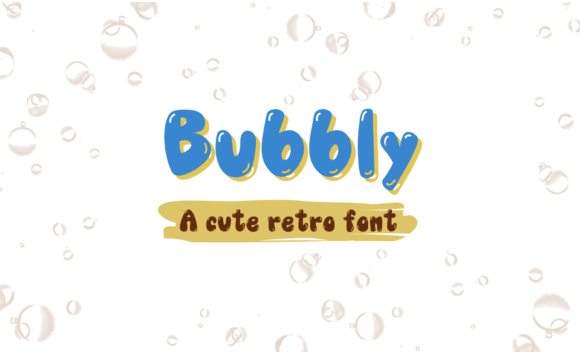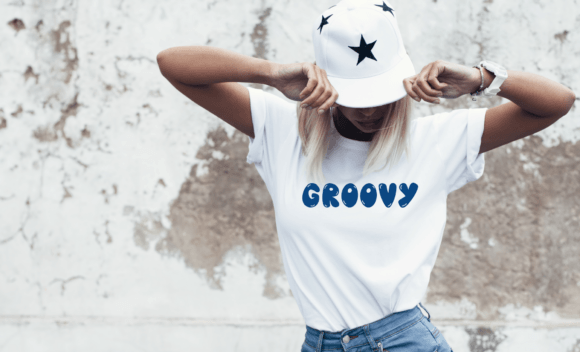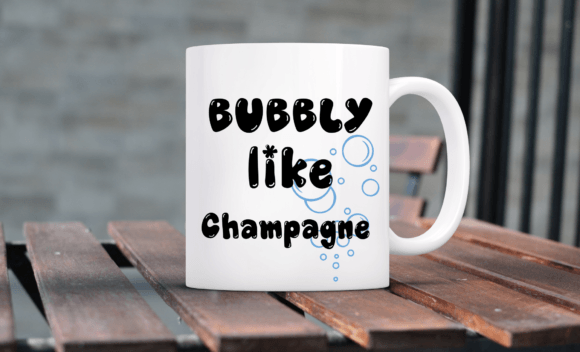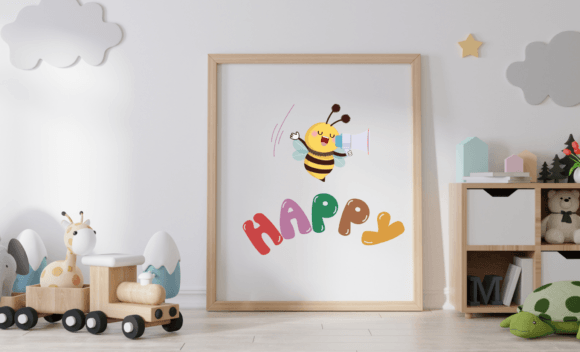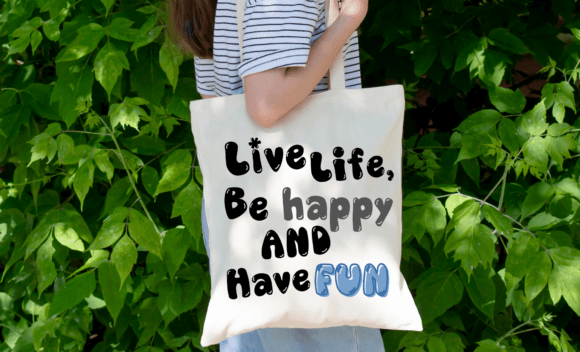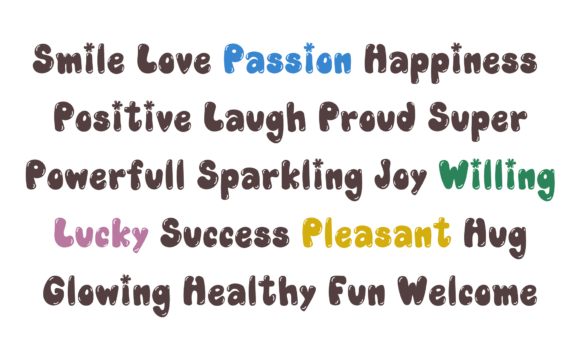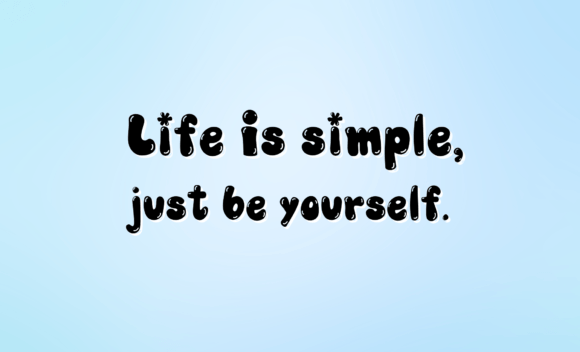
Adding a Splash of Fun to Your Designs
Have you ever found yourself rummaging through old family photos or antique stores, searching for that perfect nostalgic touch to inspire your next creative project? I know I have! There’s something special about revisiting the past, isn’t there?
That’s exactly what the Bubbly Font does – it transports you to a bygone era of simplicity and charm. This playful font feels like a warm hug from your grandmother, delivering an incredible vintage aesthetic that’s sure to bring a smile to your face. Whether you’re designing party invitations, swimwear branding, or anything in between, the Bubbly Font is the perfect addition to add that special retro touch.
As a designer, you know how valuable it is to have the right tools at your disposal. The Bubbly Font is a must-have for anyone looking to infuse their designs with a touch of youth and joy. Its versatility and charm make it an instant favorite among creatives, and we can’t wait to see what you’ll create with it!
Bubbly Font Key Features
- Font Family: Bubbly Font is a sans-serif font family, designed to evoke a sense of playfulness and friendliness.
- Unique Characteristics: The Bubbly Font features a unique, rounded design with a subtle gradient effect, giving it a distinctive and eye-catching appearance.
Bubbly Font Review
I have to say, I was really excited to dive into the Bubbly Font. The initial impression is that it’s a fun, playful font perfect for adding a pop of personality to your designs. ✨ The bubbly aesthetic is undeniably charming, and it’s great for creating a sense of whimsy and approachability.
One of the things I appreciate about Bubbly Font is its versatility. It can be used for a wide range of applications, from logos and branding to digital displays and signage. ✨ The font is also highly legible, even at smaller sizes, which is a major plus.
- ⚠️ Limited font weight options: While Bubbly Font comes in several weights, the selection is somewhat limited, which may not be ideal for designers who need a wide range of font weights for their projects.
- ⚠️ Not suitable for formal designs: While Bubbly Font is perfect for playful and informal designs, it may not be the best choice for formal or professional projects, as it can come across as too casual.
Overall, I think Bubbly Font is a solid choice for designers who want to add a touch of personality to their projects. While it may have some limitations, its unique aesthetic and versatility make it a great addition to any design toolkit.
The Bubbly Font is ideal for:
- Adding a playful touch to children’s party invitations.
- Creating eye-catching social media graphics.
- Designing a whimsical wedding invitation.